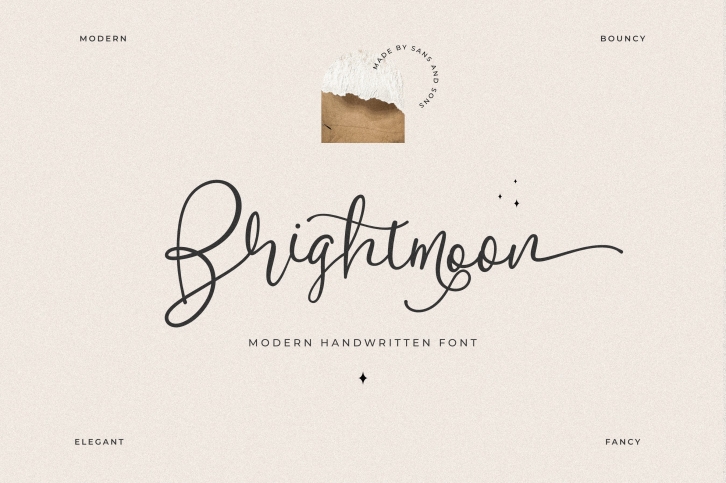
Brightmoon is a great font that was designed by Sans & Sons. Imagine the amount of combinations you can create using this font! The archive is 2.70 MB and it was released on February 21, 2021. Brightmoon looks beautiful on wedding invitations, greeting cards, logos, posters, labels, t-shirt designs, logos, business cards and is perfect for use in ink or watercolor works, fashion, magazines, packaging and food menus, children's books and more!